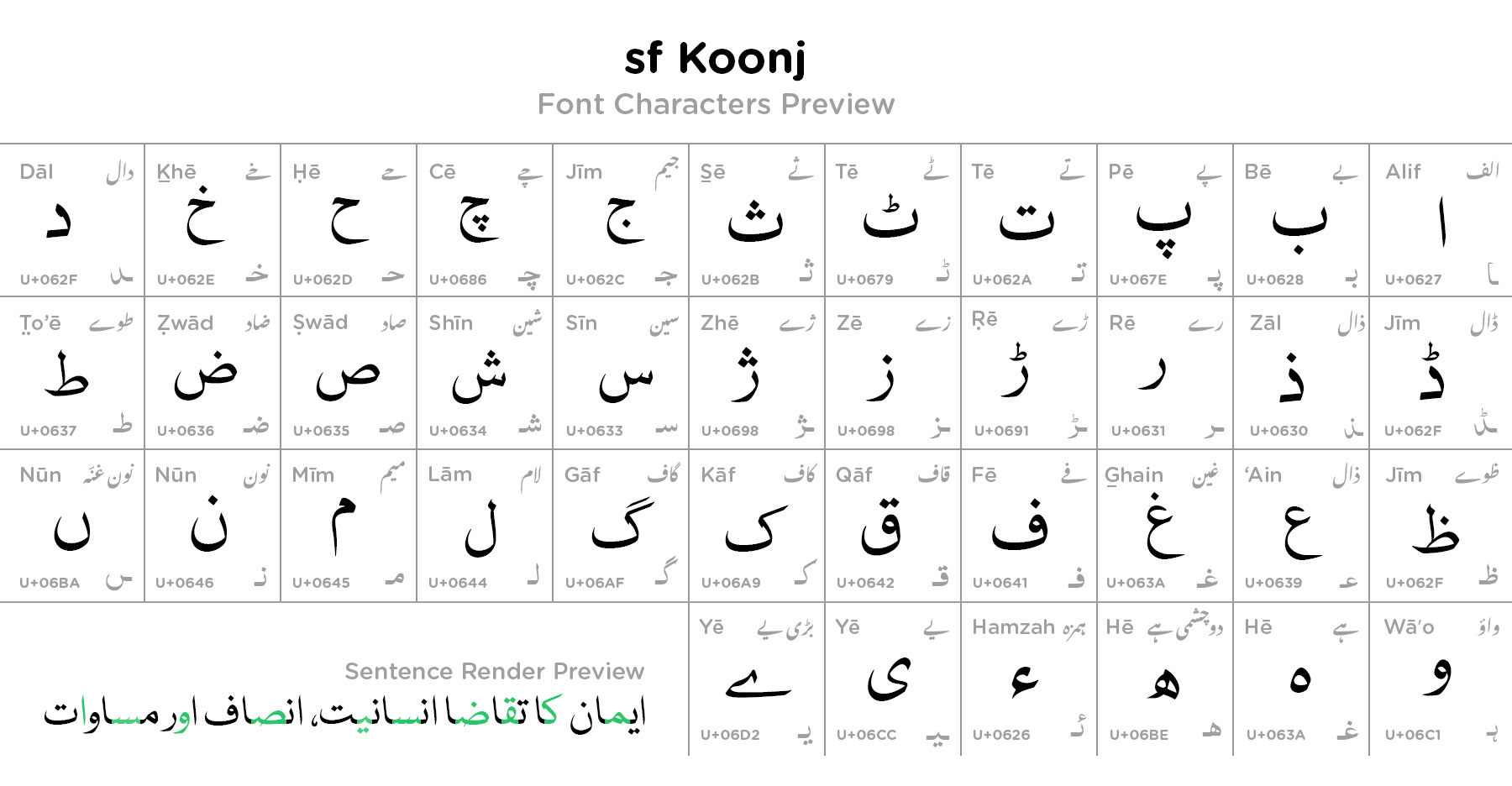
SF Koonj, a creation of Rizwan Atta, draws inspiration from Naskh's script, embodying simplicity and clarity in its regular Urdu font style. Developed based on Nafees Naskh Web and released under GPL, it offers a robust solution for various typographic needs. With 245 characters and 357 glyphs, it supports Arabic, Latin, and Urdu languages, ensuring versatility across different Unicode blocks. Released on October 2, 2012, the font stands out for its moderate and consistent thickness, delivering impactful strokes that maintain readability on screens and in print. Its simple yet elegant design, devoid of decorations, lends it a formal look suitable for branding, advertising, logos, creative posters, books, and formatting documents.